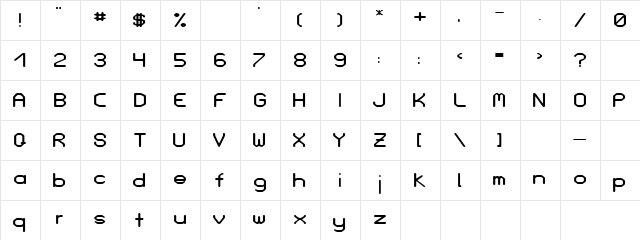
Slice Regular
Design Context for Slice Typeface
Slice is a composed and adaptable typeface that performs quietly and consistently across a wide range of design contexts.